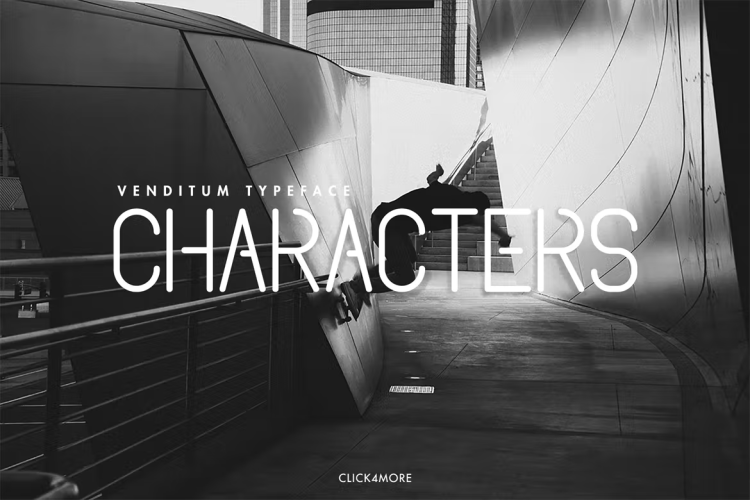
Venditum Typeface Font
Venditum Typeface is a familia font inspired by modern monoline typeface. Trying to combining modern, future, monoline, and “tumblr”-ish into one style. Very suitable for flyer, posters, shirt, letterhead, or any design requirements that you want to be awesome. ____________________________________________________________________________________________
Venditum Features :
OpenType Features :
There are 6 styles : Regular, Italic, Bold, Bold Italic, Outline, Outline Italic, and also OpenType feature: Fraction that makes you easier to design many great things. Don’t forget to access OpenType feature you need a programs that support OpenType features such as Adobe Illustrator CS or Adobe InDesign.
Hope this familia can updates with more Alternate & Stylistic Set soon